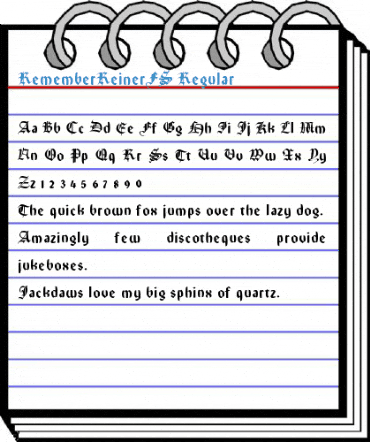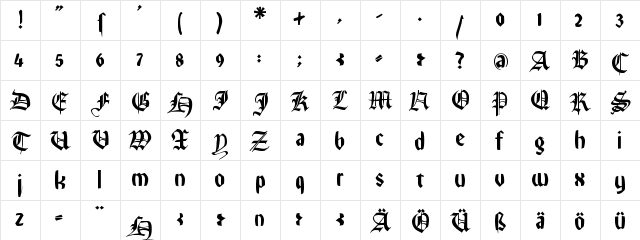
RememberReinerFS Regular
Design Context for RememberReinerFS
RememberReinerFS is a composed and adaptable typeface that performs quietly and consistently across a wide range of design contexts.